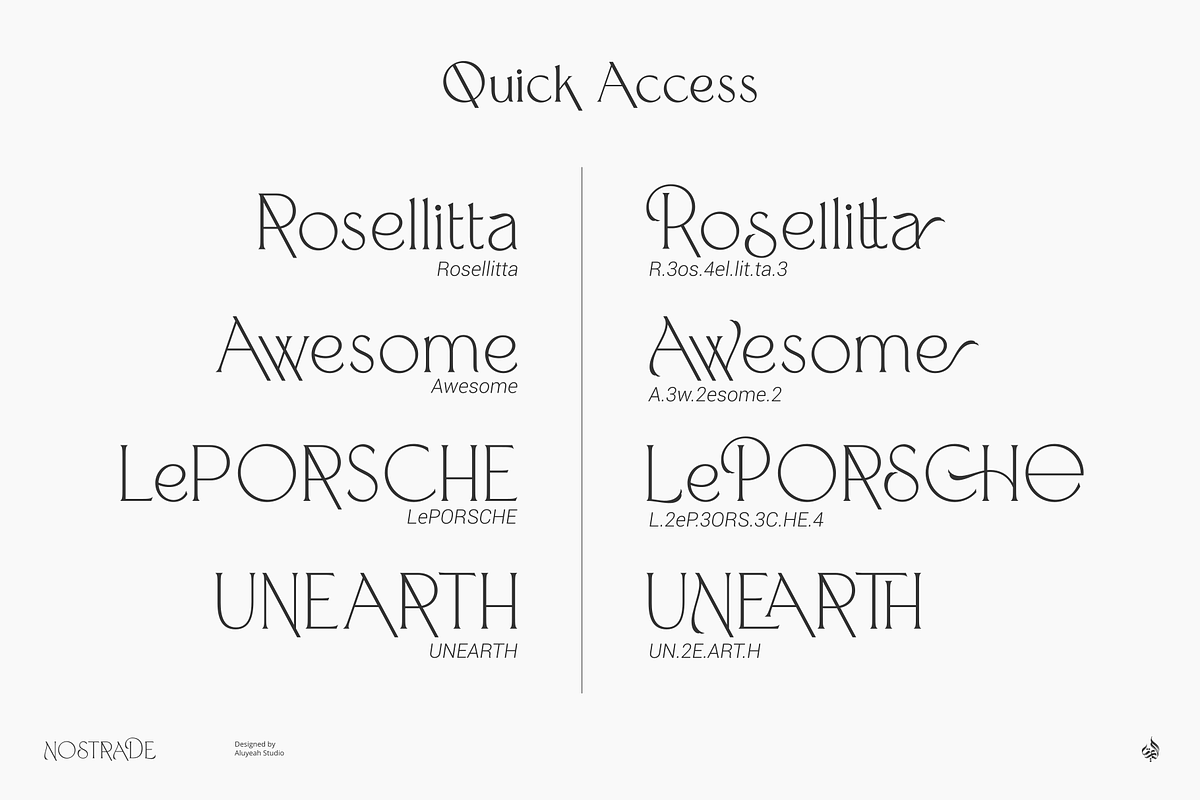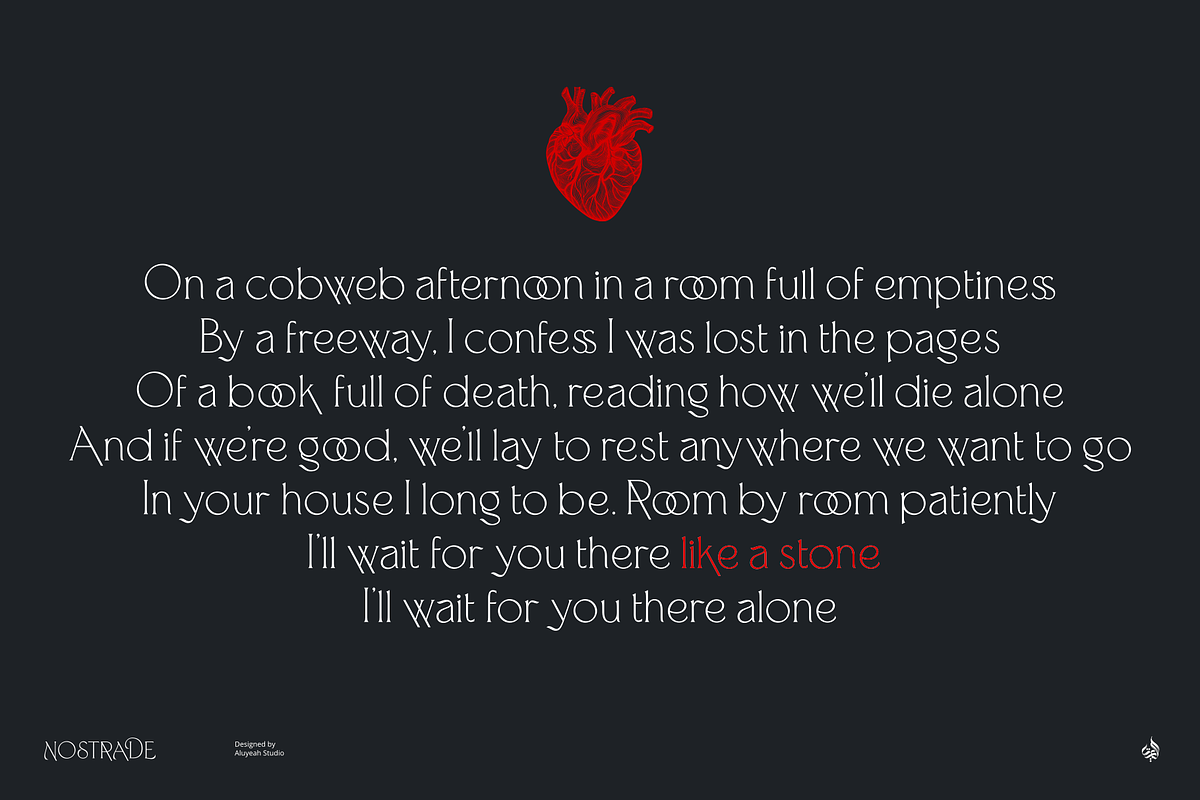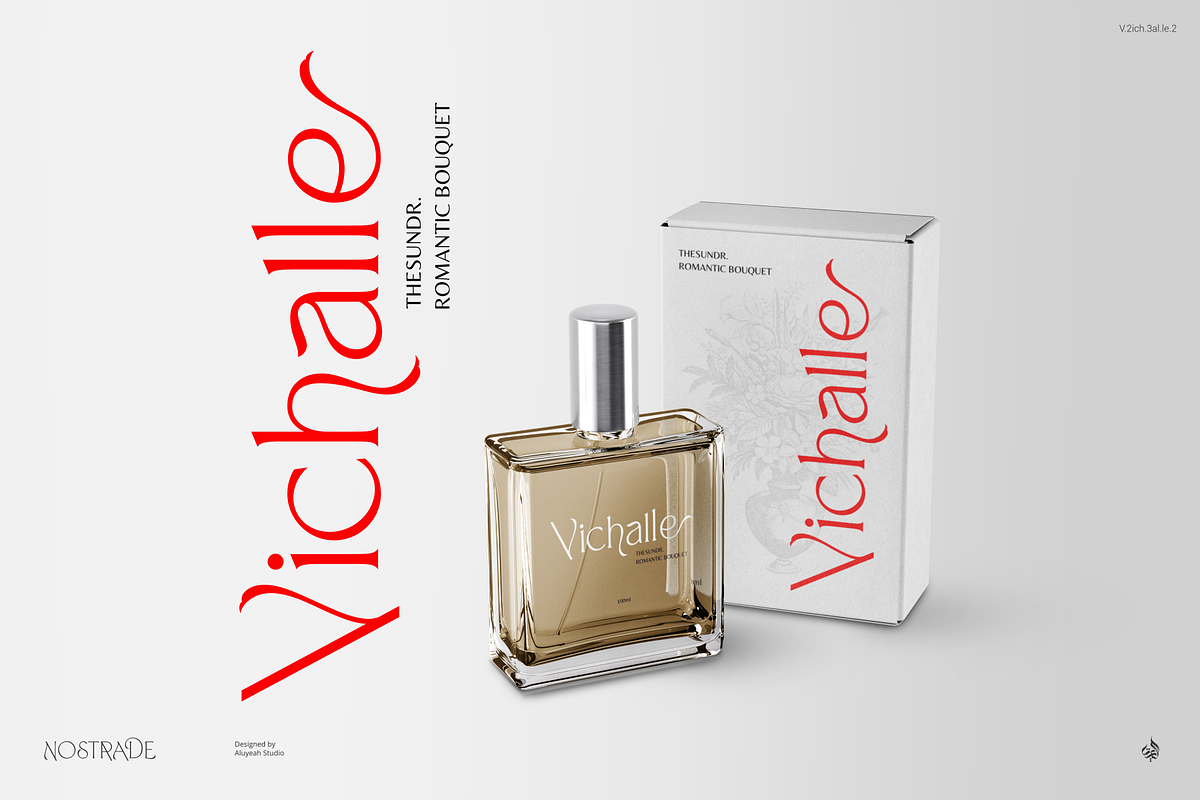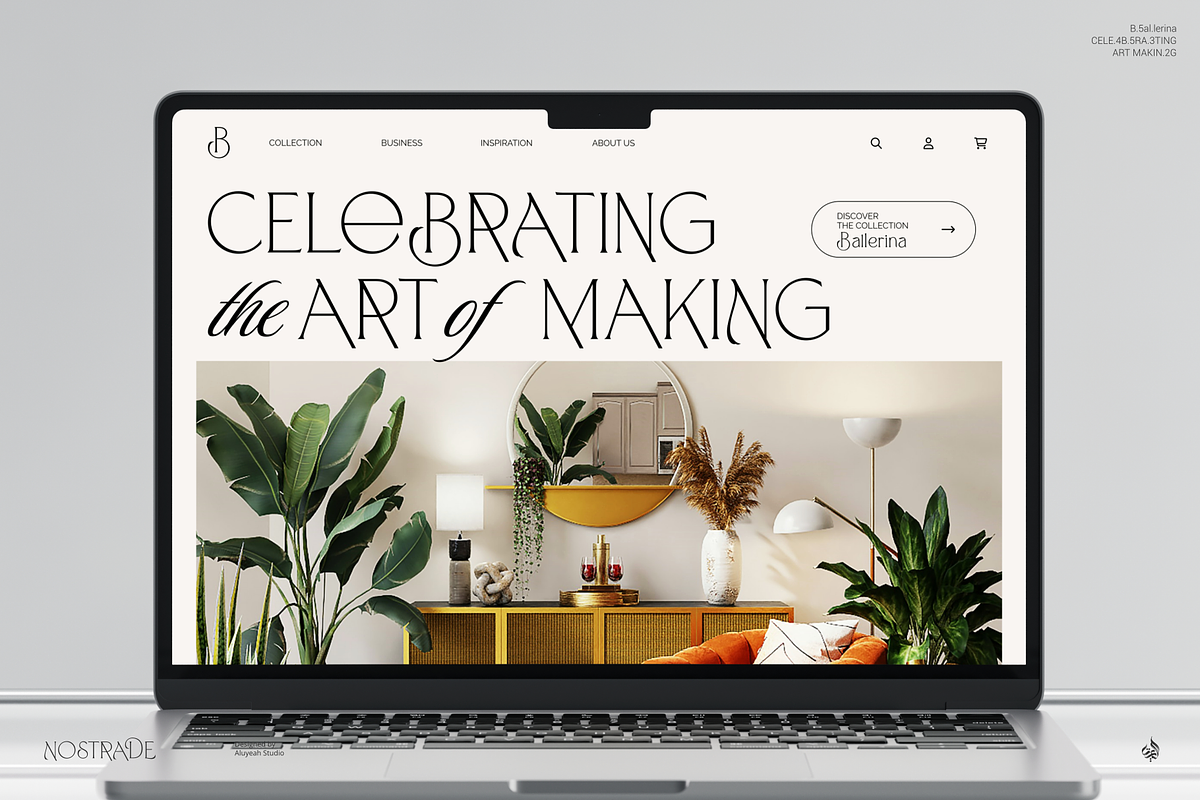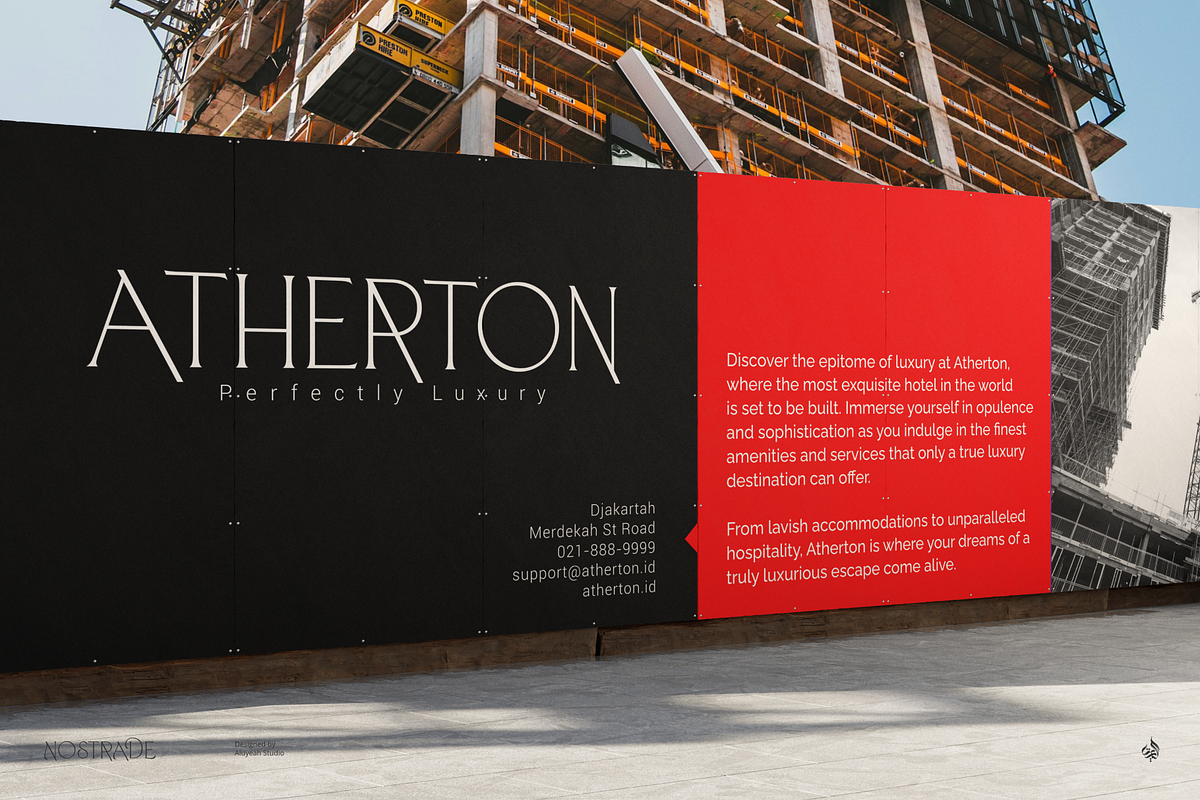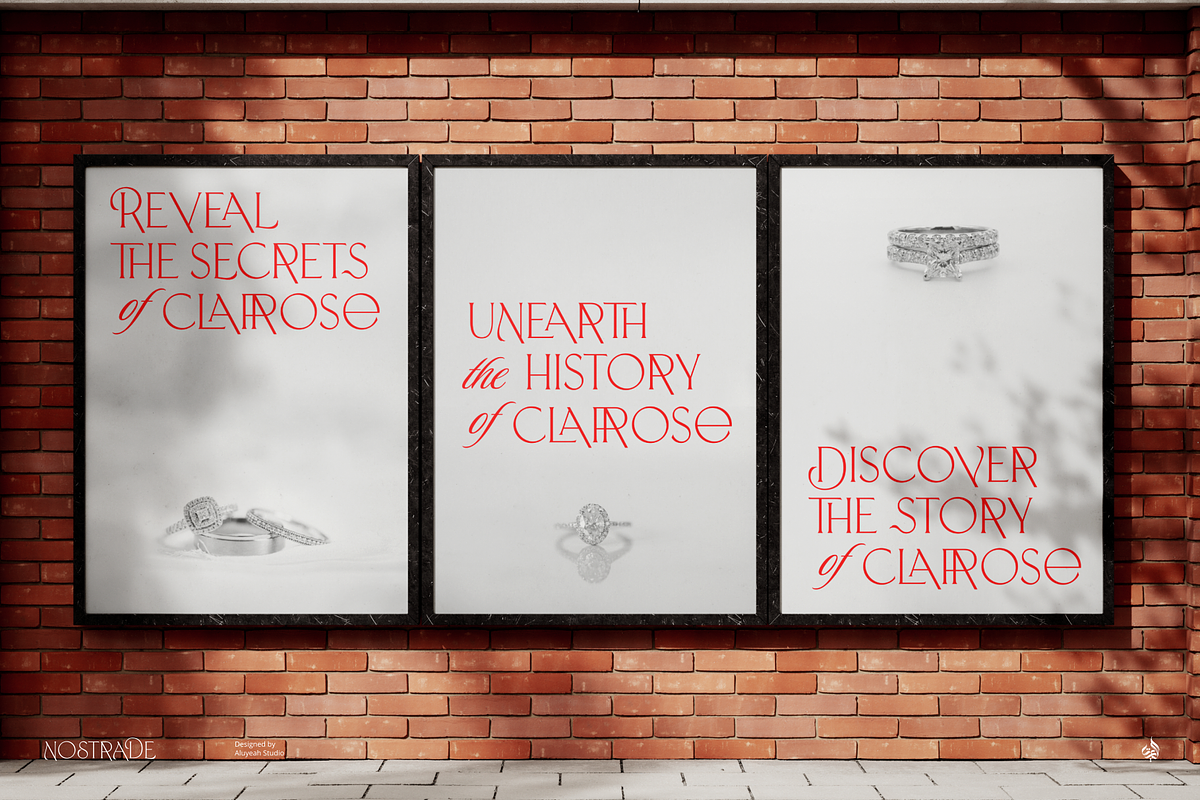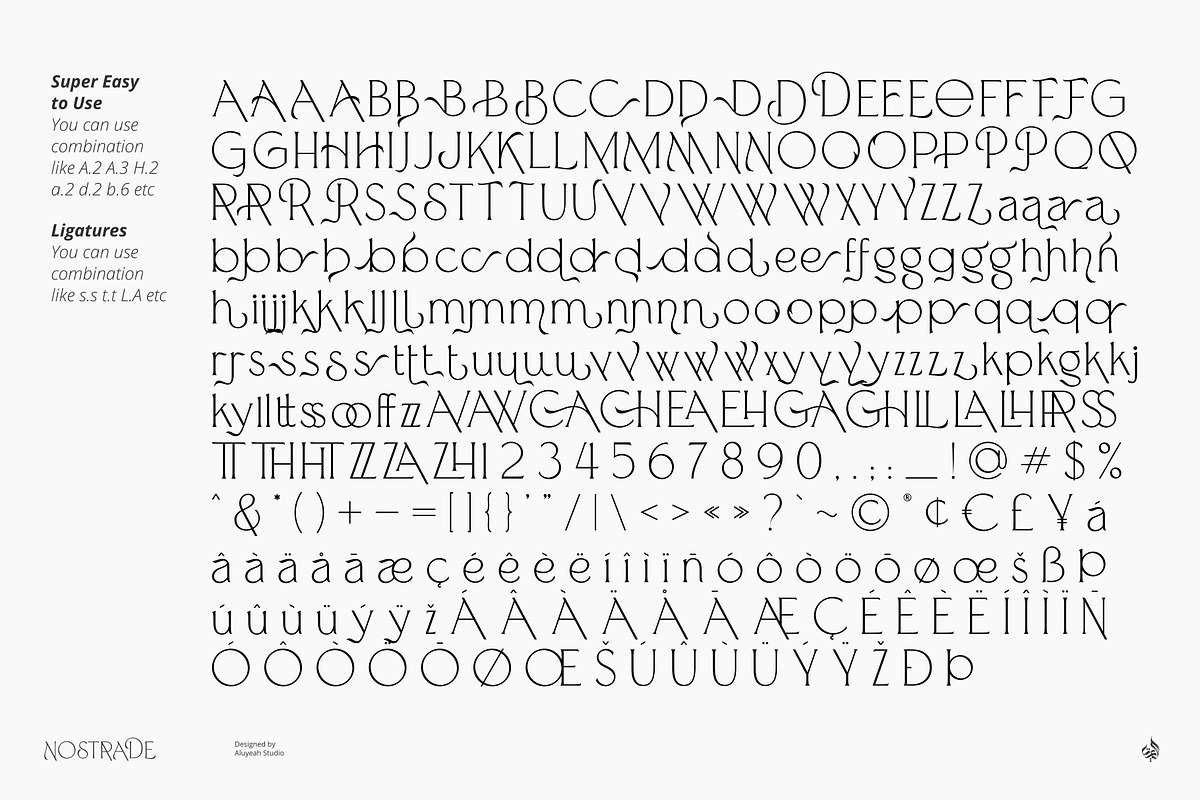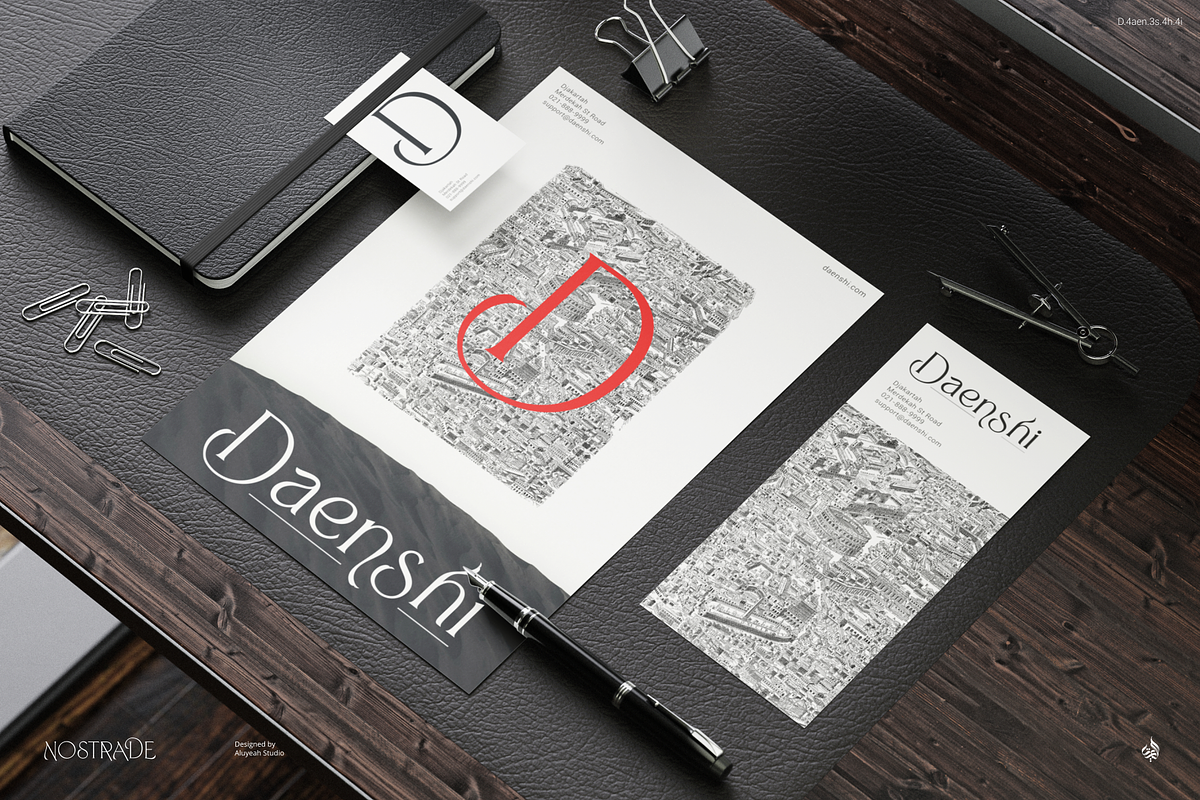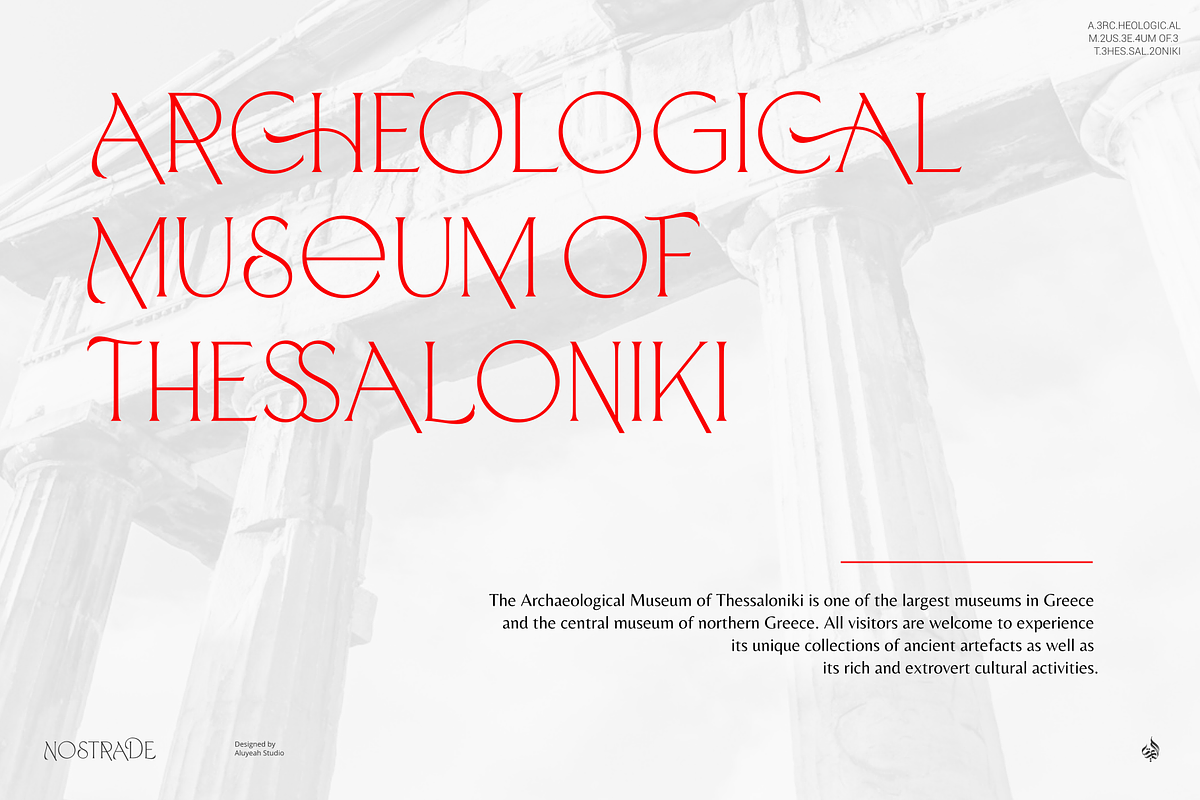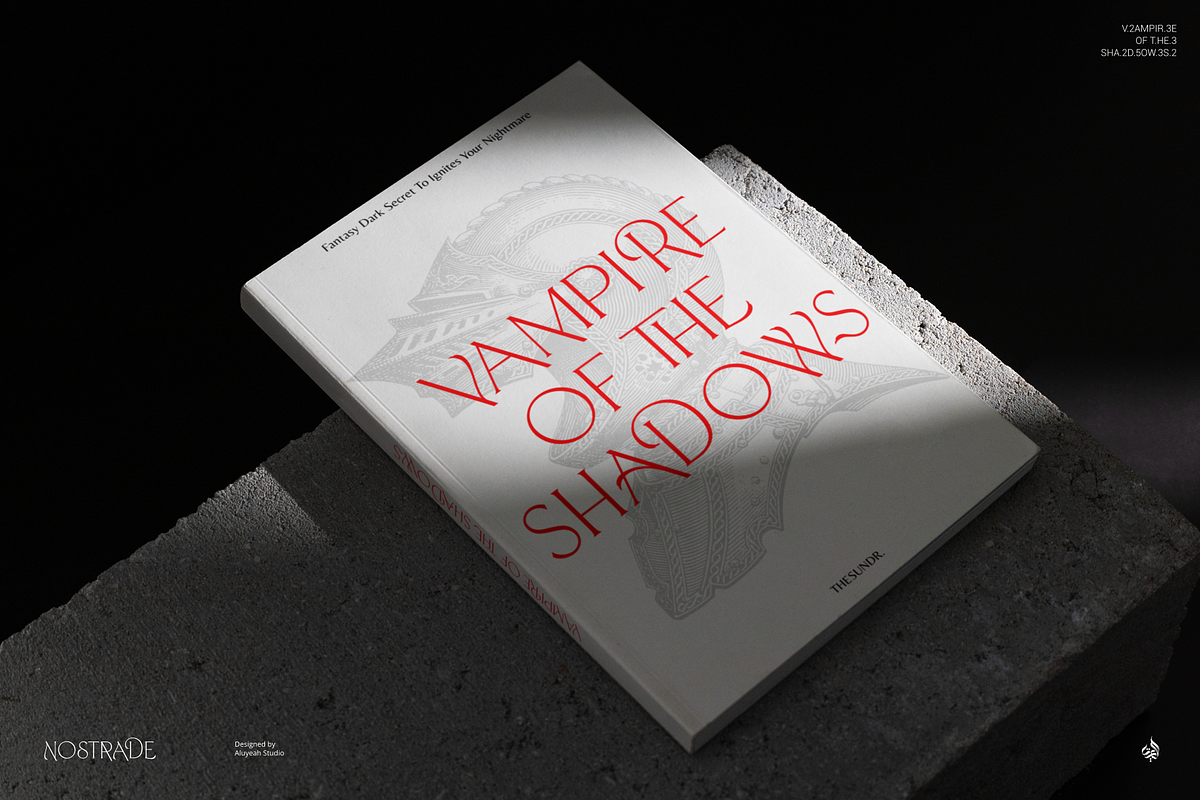
Nostrade
Introducing Nostrade - A Tough and Strange Display Font!
Enhance your design projects with Nostrade, a tough and strange display font. Add a unique vibe to your work with this versatile font that includes more than 140+ alternates and ligatures. Available in 4 weights with quick access to alternate characters, you can quickly and easily find the perfect match for your project. It will surely add an authentic, tough, strange, unique touch to any design!
- Super Easy to Use alternates - You can easily call alternates using quick access combination like A.2 A.3 a.2 b.6 L.A T.H etc.
To get results like the preview, in the design software you use, select this font then just write N.2OS.3TRA.3D.5E.3